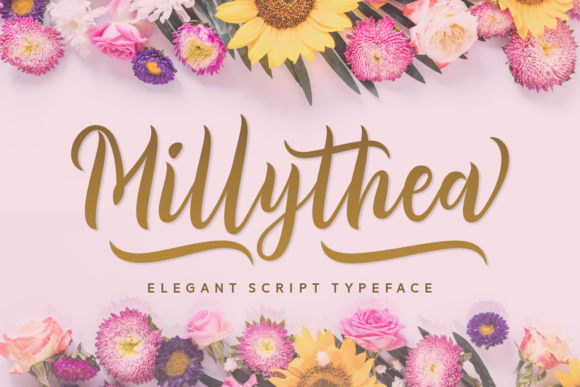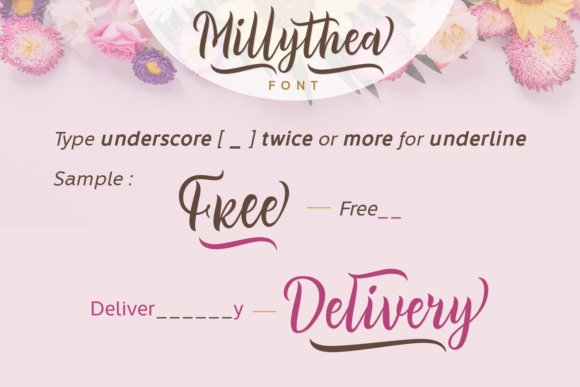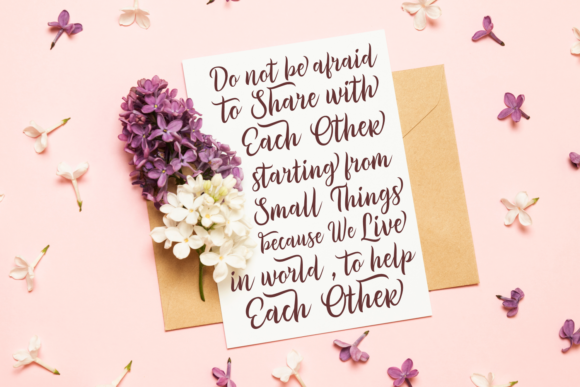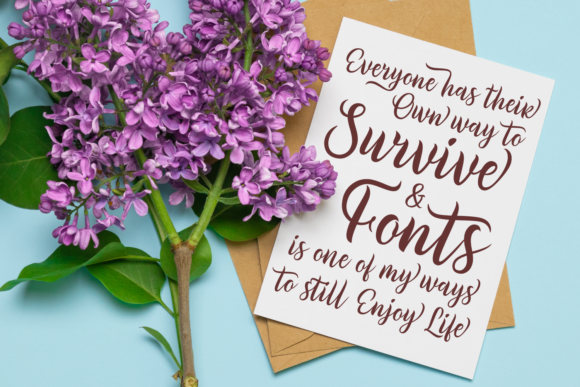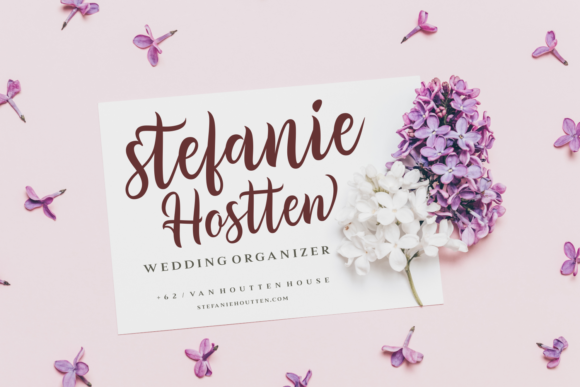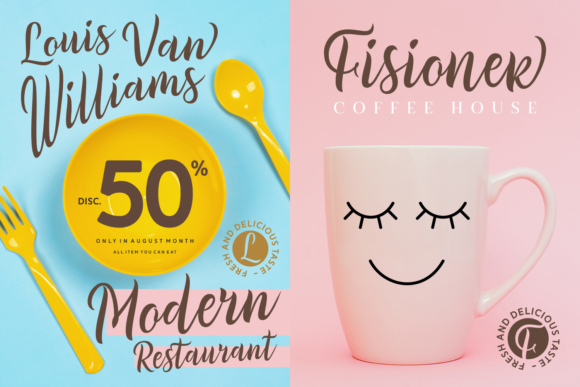
Millythea Font
About Millythea Font
Millythea is an elegant and cute handwritten font with a whimsical feel. It will turn any design project into a piece of art!